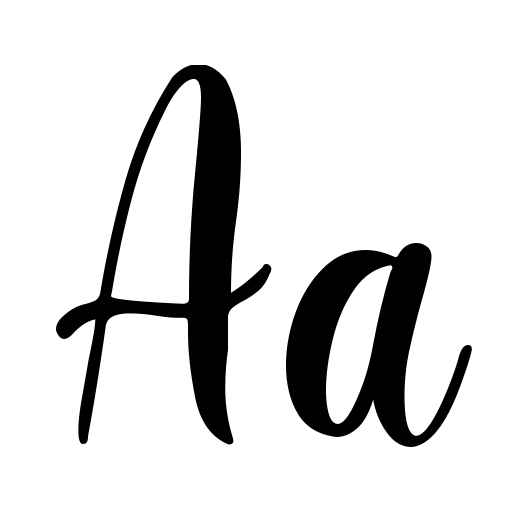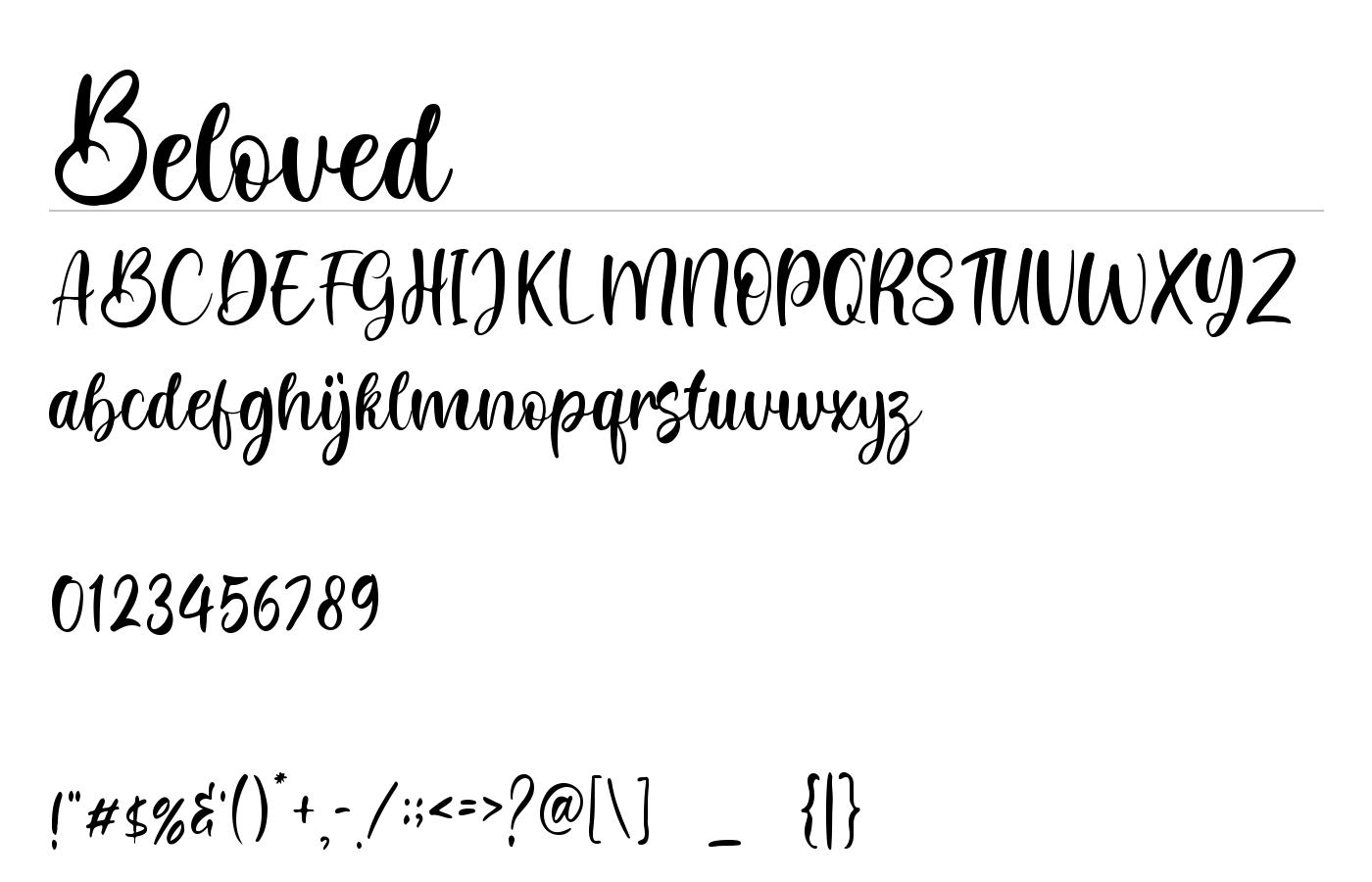
Beloved is a charming script font with a warm, handwritten feel, featuring smooth, flowing strokes and moderate contrast that make it both elegant and approachable. Its playful yet refined style suits creative projects like invitations, branding for lifestyle or beauty products, and expressive headlines where a personal, friendly touch is desired. This font works best in designs that need a blend of sophistication and casual warmth to connect emotionally with their audience.
Beloved Font
About Beloved Font
| Font family | Beloved Font |
| Designer | (MJB Letters). 2021. (Muhammad Mujibulloh) |